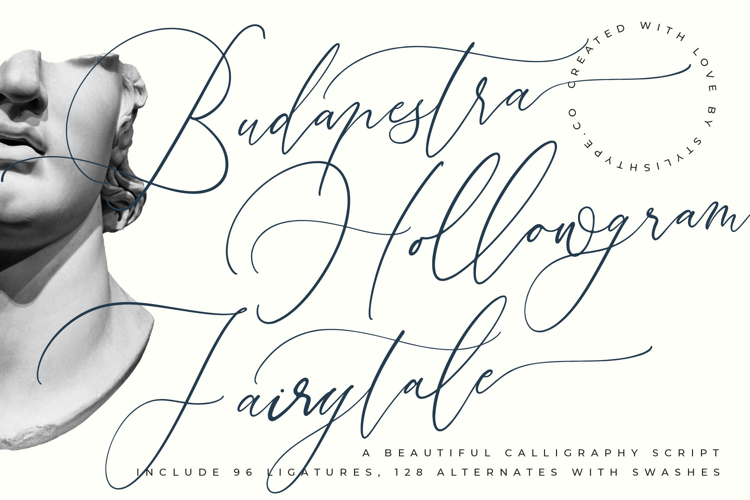
Budapestra Hollowgram Fairytale - Beautiful Calligraphy
Budapestra Hollowgram Fairytale - Beautiful Calligraphy Script
Capturing the essence of timeless grace, **Budapestra Hollowgram Fairytale** stands as a testament to the art of fine handwriting. It is an exquisite calligraphy masterpiece designed to bring a touch of poetic beauty to every creative endeavor.
Drawing inspiration from the ethereal charm of classical Greek sculptures and the fluid motions of historical ink-and-quill manuscripts, this typeface evokes a sense of enduring romance. It captures the atmosphere of a moonlit garden, where every stroke tells a story of elegance and mystery.
The personality of this typeface is defined by its ability to act as a **modern serif display** alternative, offering a level of **luxury typography** that is unparalleled in the script category. Its **high-contrast serif** influence and fluid lines create a sophisticated **editorial font** that leaves a lasting **branding impact**.
Embracing the **modern serif trend** in a calligraphic form, this font sits at the forefront of **editorial display fonts**. It represents the pinnacle of **character-driven typography**, blending historical roots with a contemporary edge that resonates with today’s visual culture.
Ideal for creative professionals, this font is a go-to for **logo design**, high-end **branding**, and luxury **editorial** spreads. It is the definitive choice for premium **packaging**, bespoke **wedding** stationery, and avant-garde **fashion** branding.
This comprehensive package includes over 96 **ligatures** and 128 **alternates** to ensure your text looks truly hand-rendered. With decorative **swashes**, full **multilingual** capabilities, and a wide array of **international characters**, it is ready for any professional workflow.